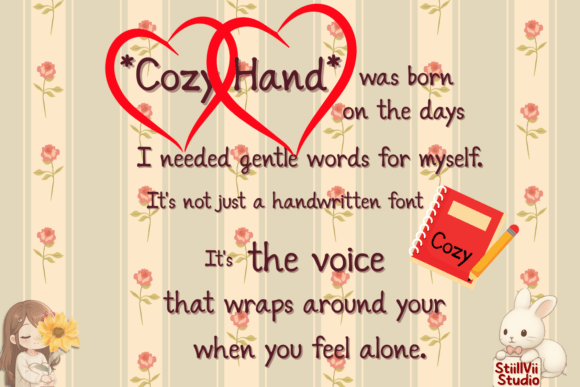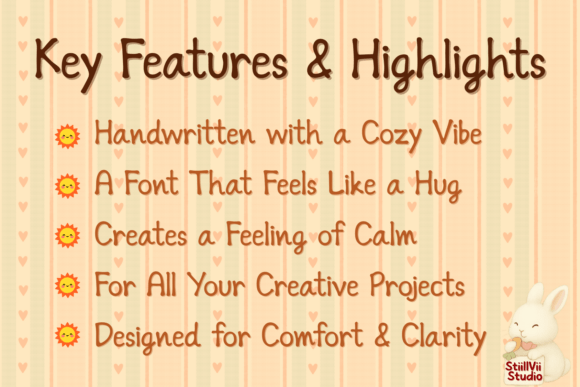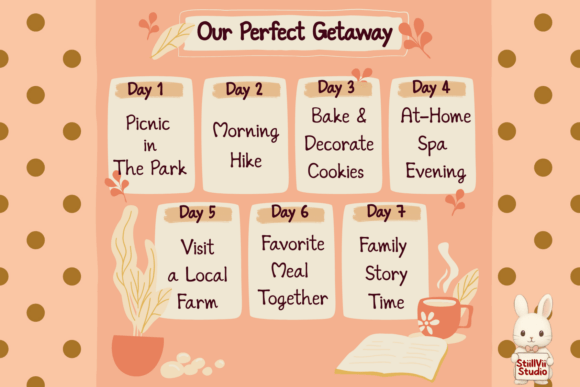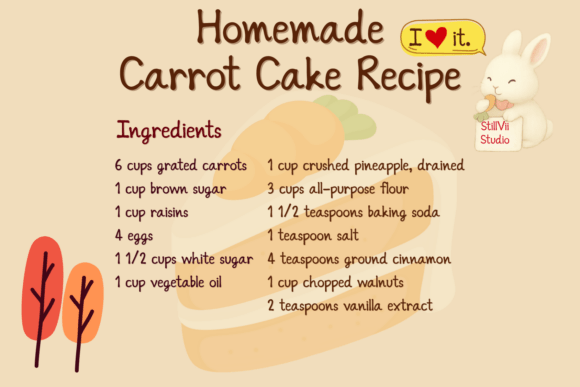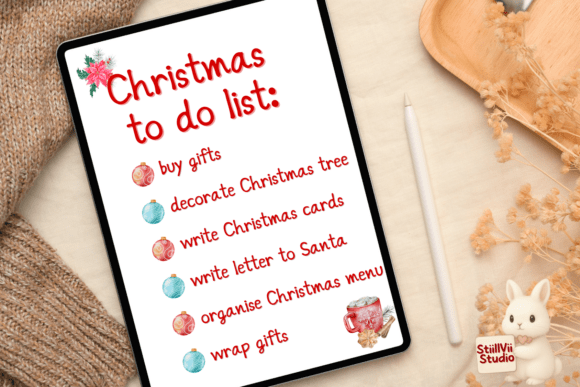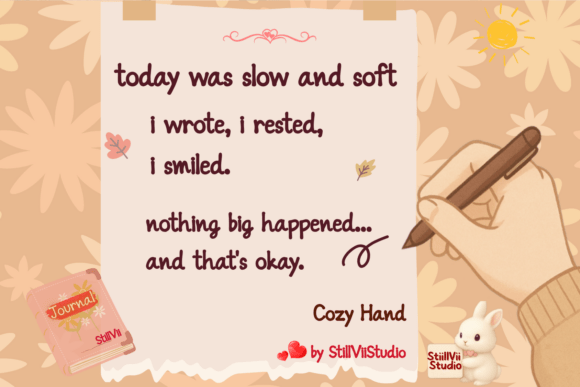
🧸 Cozy Hand Font: A Warm Hug for Your Designs 🧸
Are you tired of using fonts that feel cold and impersonal? Do you want to add a touch of comfort and sincerity to your designs? Look no further than Cozy Hand, a charming handwriting font that’s perfect for projects that need a personal, human touch. In this article, we’ll explore the unique features of Cozy Hand and why it’s the perfect choice for designers and crafters who want to create warm and inviting content.
The Story Behind Cozy Hand
Cozy Hand was born from the desire for gentle words and quiet moments. Its creator wanted to design a font that would evoke a sense of warmth and comfort, something that would make readers feel like they’re receiving a warm hug. And that’s exactly what Cozy Hand delivers. This font is not about perfection; it’s about warmth and readability. With its rounded edges and relaxed strokes, Cozy Hand looks exactly like neat, friendly handwriting – making it perfect for projects that need a personal touch without looking messy.
Why You’ll Love Cozy Hand
So, what makes Cozy Hand so special? Here are just a few reasons why you’ll love this adorable font:
- 📖 Super Readable: Cozy Hand is perfect for long texts like recipes, blog posts, and study notes. Its clear and gentle lettering makes it easy to read, even for extended periods.
- ☕ Authentic Vibe: Cozy Hand mimics natural penmanship, giving your designs a “homey” aesthetic that’s perfect for creating a sense of comfort and familiarity.
- 📅 Planner Friendly: Cozy Hand looks amazing in GoodNotes, Notability, and bullet journals. Its relaxed strokes and rounded edges make it perfect for adding a personal touch to your planning and organization.
- 🎨 Versatile: Cozy Hand is great for a wide range of projects, from travel itineraries and Christmas lists to DIY greeting cards and kids’ crafts.
Perfect For
So, what types of projects is Cozy Hand perfect for? Here are some ideas to get you started:
- Recipe Cards & Cookbooks: Add a personal touch to your recipes with Cozy Hand’s warm and inviting lettering.
- Digital Planners & Bullet Journaling: Create a cozy and organized space with Cozy Hand’s planner-friendly font.
- Study Notes & School Worksheets: Make learning more fun and engaging with Cozy Hand’s readable and gentle lettering.
- Comforting Quotes & Social Media: Share inspiring quotes and messages with Cozy Hand’s authentic and heartfelt font.
- Kids’ Crafts & Storybooks: Bring your children’s stories to life with Cozy Hand’s playful and imaginative font.
Tips for Using Cozy Hand
Here are a few tips for getting the most out of Cozy Hand:
- Pair with Other Fonts: Cozy Hand pairs perfectly with other fonts, especially those with a clean and modern aesthetic.
- Experiment with Colors: Cozy Hand looks great in a range of colors, from soft pastels to rich jewel tones.
- Use for Headings and Body Text: Cozy Hand is perfect for both headings and body text, making it a versatile choice for a wide range of projects.
In conclusion, Cozy Hand is a unique and charming font that’s perfect for designers and crafters who want to add a touch of comfort and sincerity to their designs. With its rounded edges, relaxed strokes, and authentic vibe, Cozy Hand is the perfect choice for projects that need a personal, human touch. Whether you’re creating recipe cards, digital planners, or kids’ storybooks, Cozy Hand is sure to become your new favorite font.